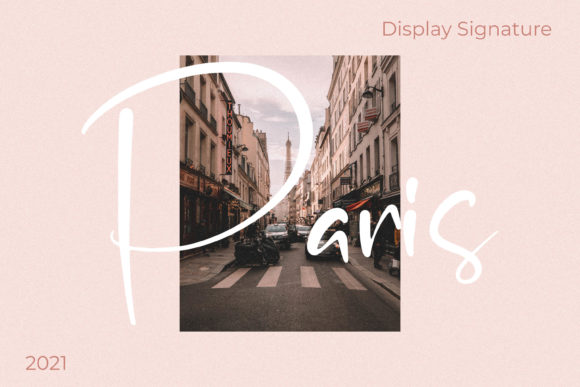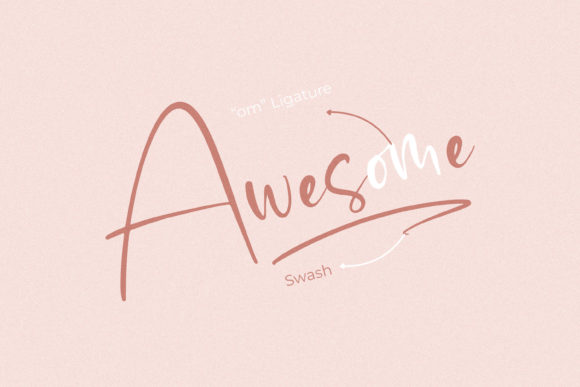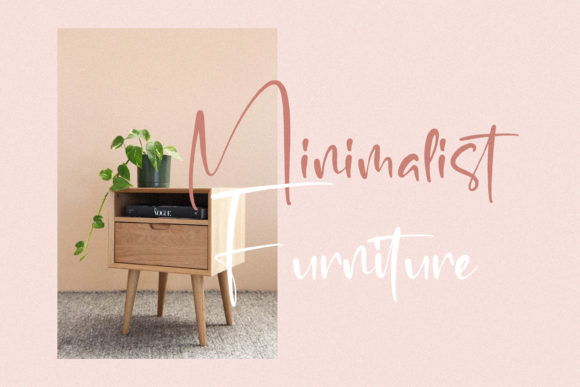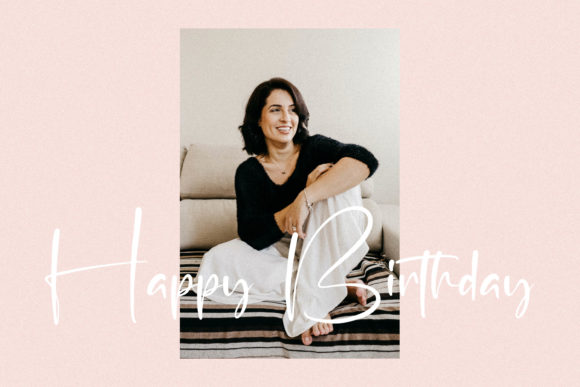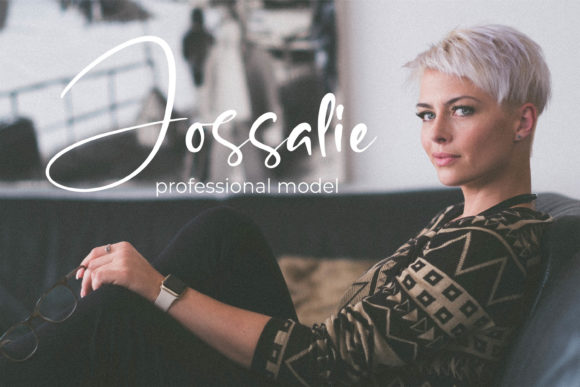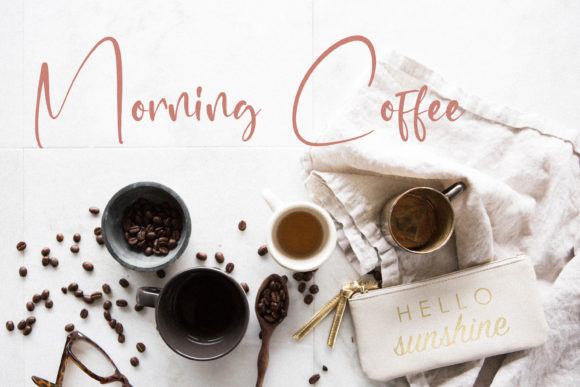
Introduction to Display Signatera Font
Display Signatera feels both elegant and distinct.
It looks gorgeous on wedding invitations, thank you cards, quotes, greeting cards, logos, business cards and every other design which needs a customized touch This font is PUA encoded which means you can access all of the glyphs and swashes with ease.